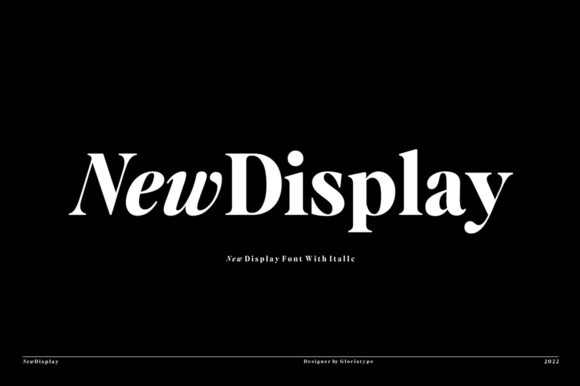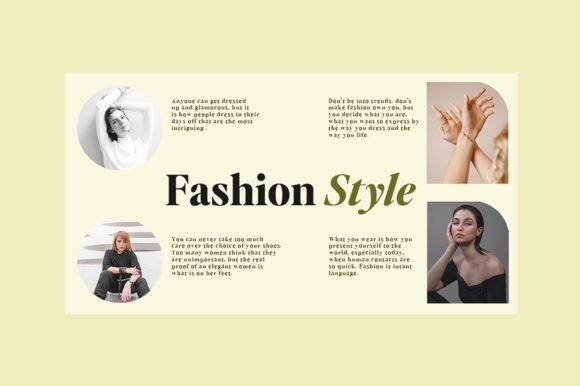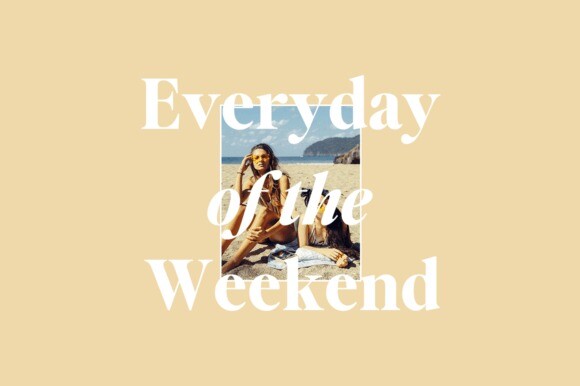
New Display Font
New Display Serif style is absolutely perfect for editorial headings. The upright and italic look makes it easy for you to use in many projects. The style of this font is bold and sleek, perfect for editorial, web, posters, t-shirts, magazine covers, etc.